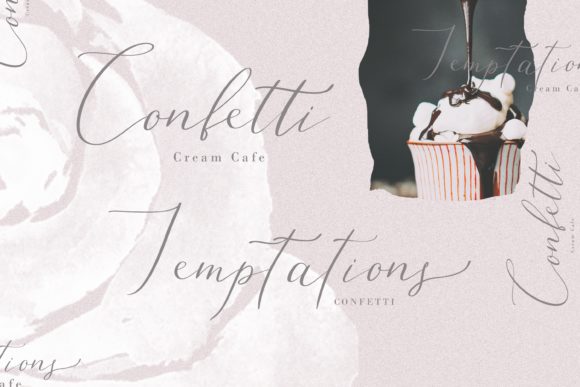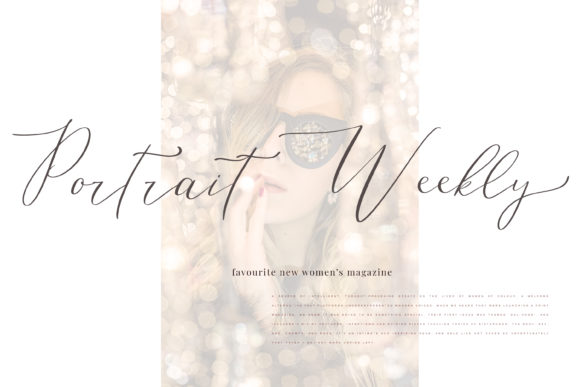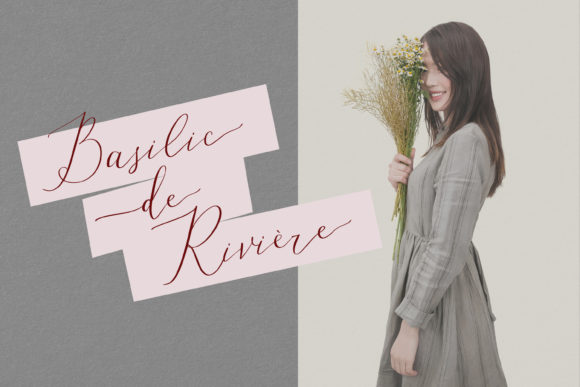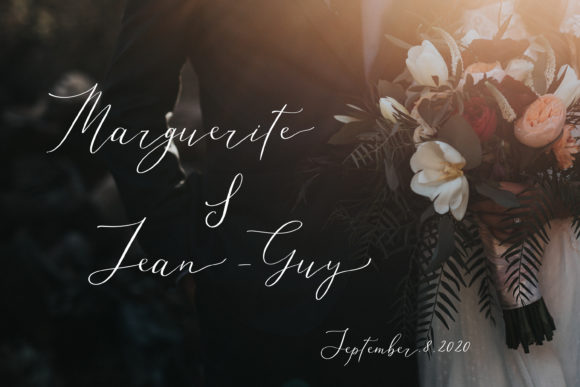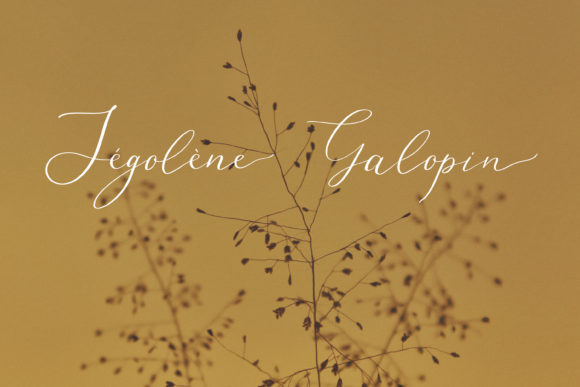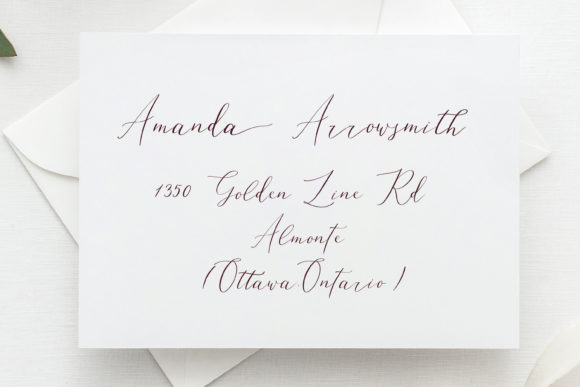
Introduction to Leisoll Reef Font
Do you ever get that spark of inspiration when browsing through design resources, and you just know you have to create something special? For me, it’s often a quiet moment in my studio, surrounded by half-finished projects and scattered papers, that I stumble upon a beautiful font that sets my imagination racing. And that’s exactly what happened when I discovered the enchanting Leisoll Reef Font – a stunning modern calligraphy script that instantly transported me to a world of elegance and romance.
As a designer, I can appreciate the value of having a reliable and versatile design resource like Leisoll Reef Font in my toolkit. With its delicate strokes and refined curves, it’s the perfect addition to any creative project, adding a touch of sophistication and whimsy that’s sure to captivate. Whether you’re working on a wedding invitation, a blog post, or a social media graphic, this font is sure to elevate your design to new heights.
Key Features of Leisoll Reef Font
- High-quality font design, ideal for creative projects that require a unique and visually appealing typography.
- Unique characteristics include a distressed, hand-drawn look and a wide range of customizable options.
Honest Review: Leisoll Reef Font
I recently came across the Leisoll Reef Font while searching for a free download to enhance my creative project. As a designer, I was excited to see what this font had to offer. Overall, I found the Leisoll Reef Font to be a great design resource, perfect for projects that require a high-quality, ocean-inspired font.
- ✨ The font’s unique design, which features a transparent background, allowing for seamless integration with other design elements.
- ✨ The font’s high quality, which is evident in its crisp and clear lettering.
- ✨ The font’s versatility, which makes it suitable for a wide range of creative projects, from logos to graphics.
Overall, I was impressed with the Leisoll Reef Font and would recommend it to designers looking for a unique and high-quality font for their creative projects.
Leisoll Reef Font is a free download that offers a unique and creative solution for your design projects. This high-quality font is perfect for those looking to add a touch of elegance and sophistication to their work.
Leisoll Reef Font is perfect for a variety of design projects, including logos, brochures, business cards, and more. Its transparent background makes it easy to use in combination with other design elements.